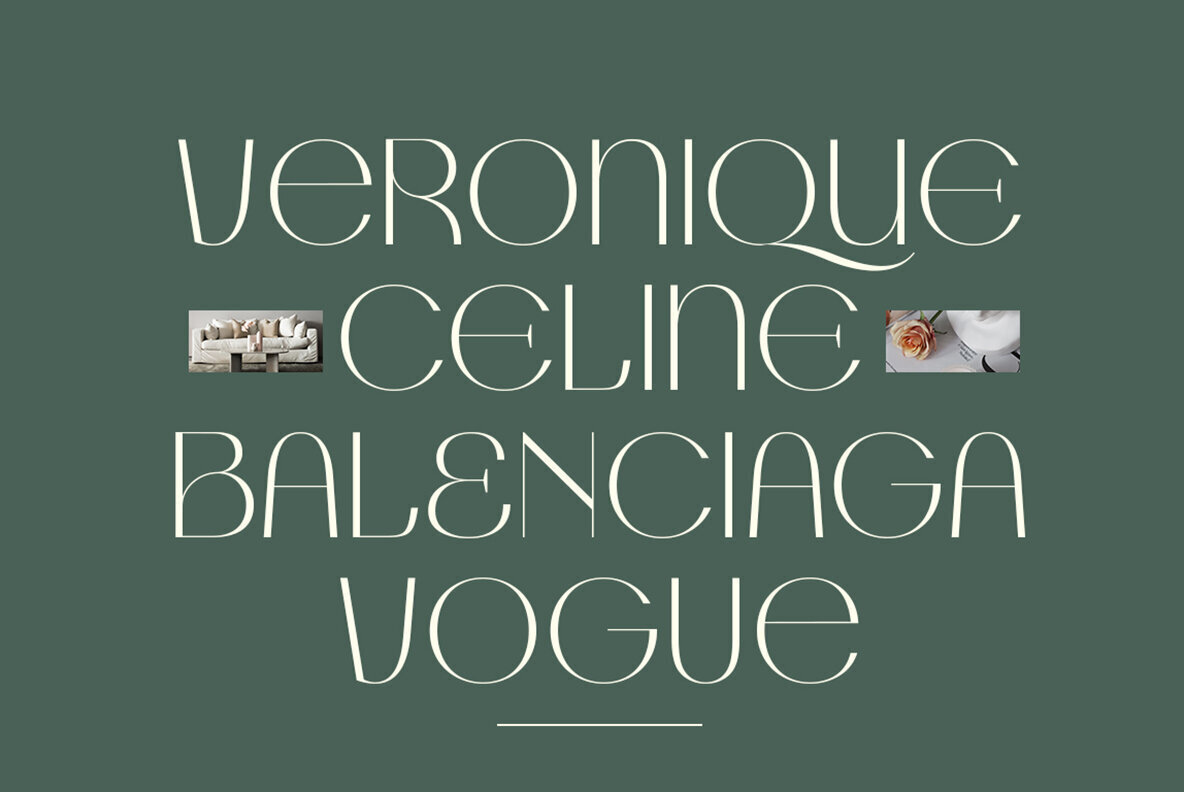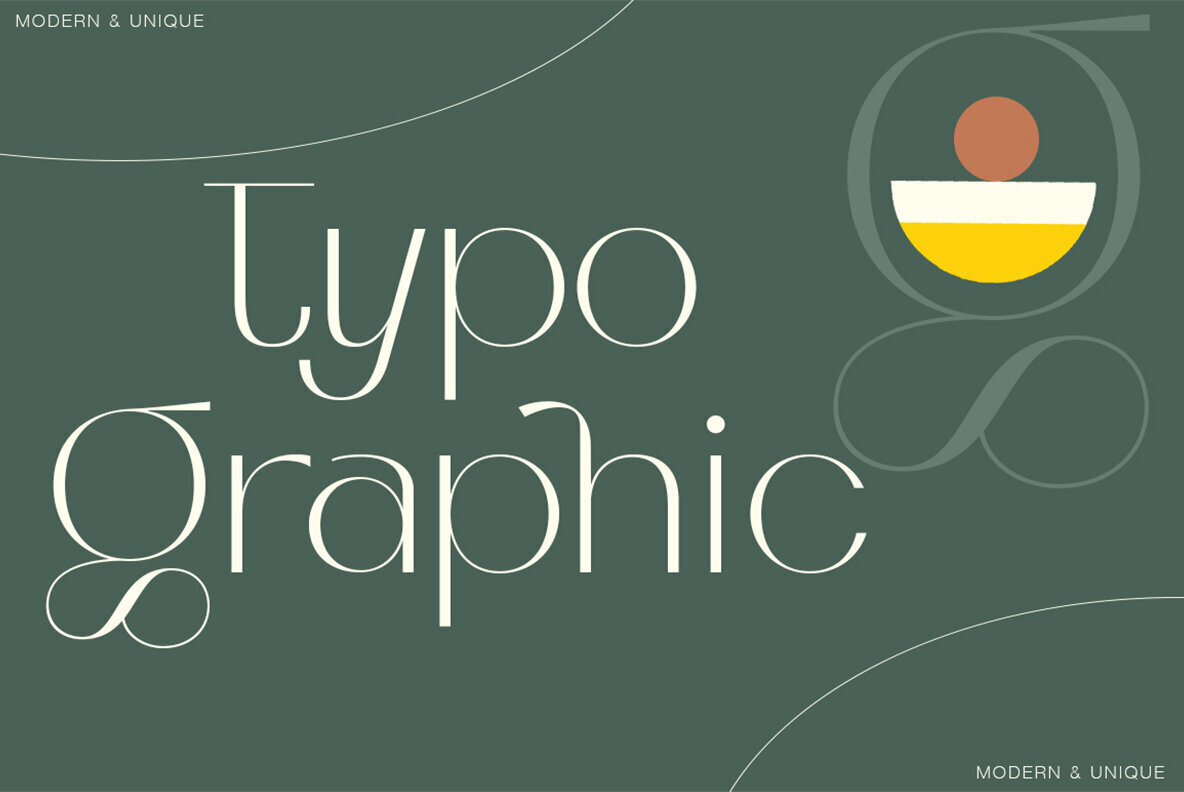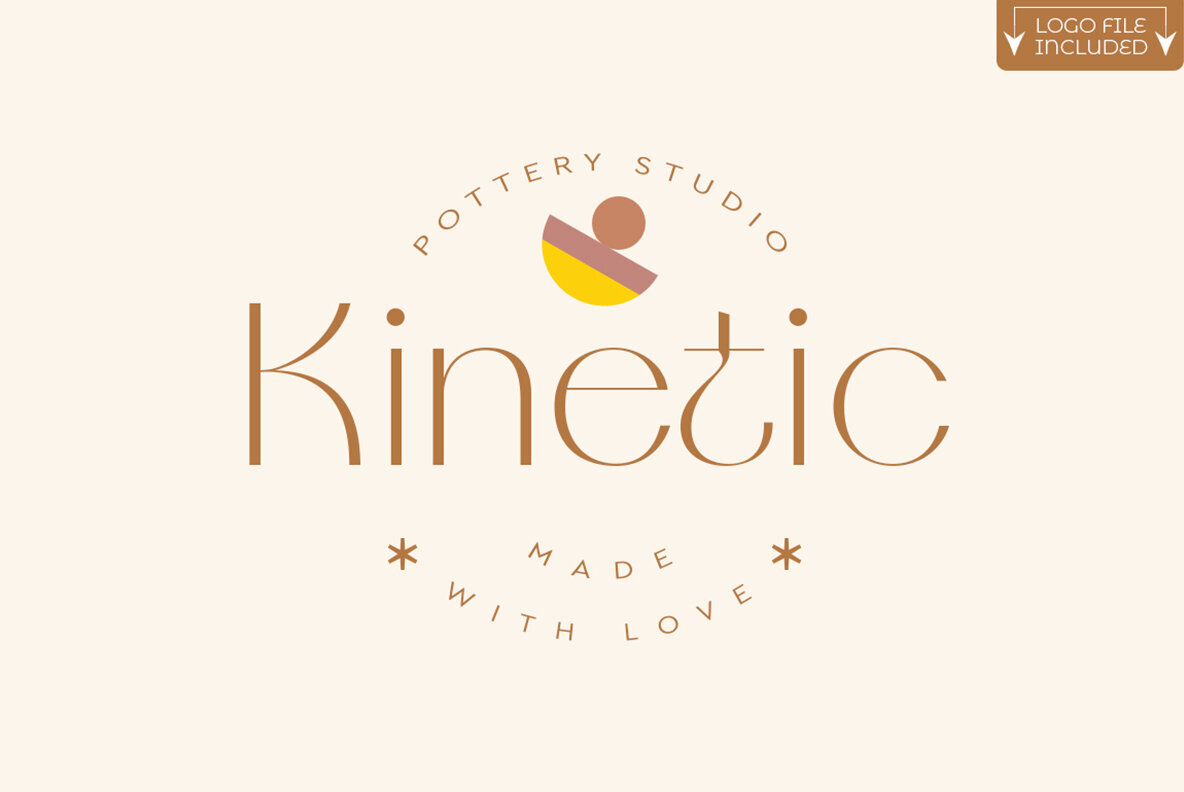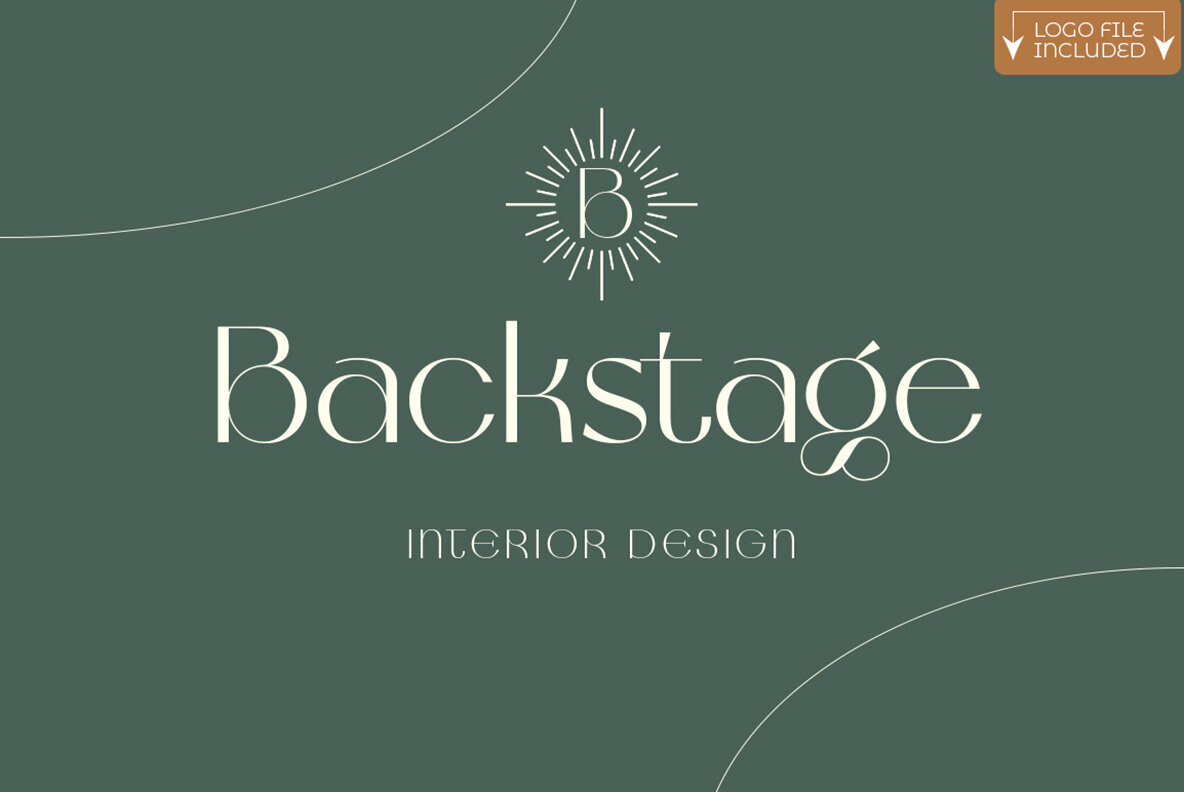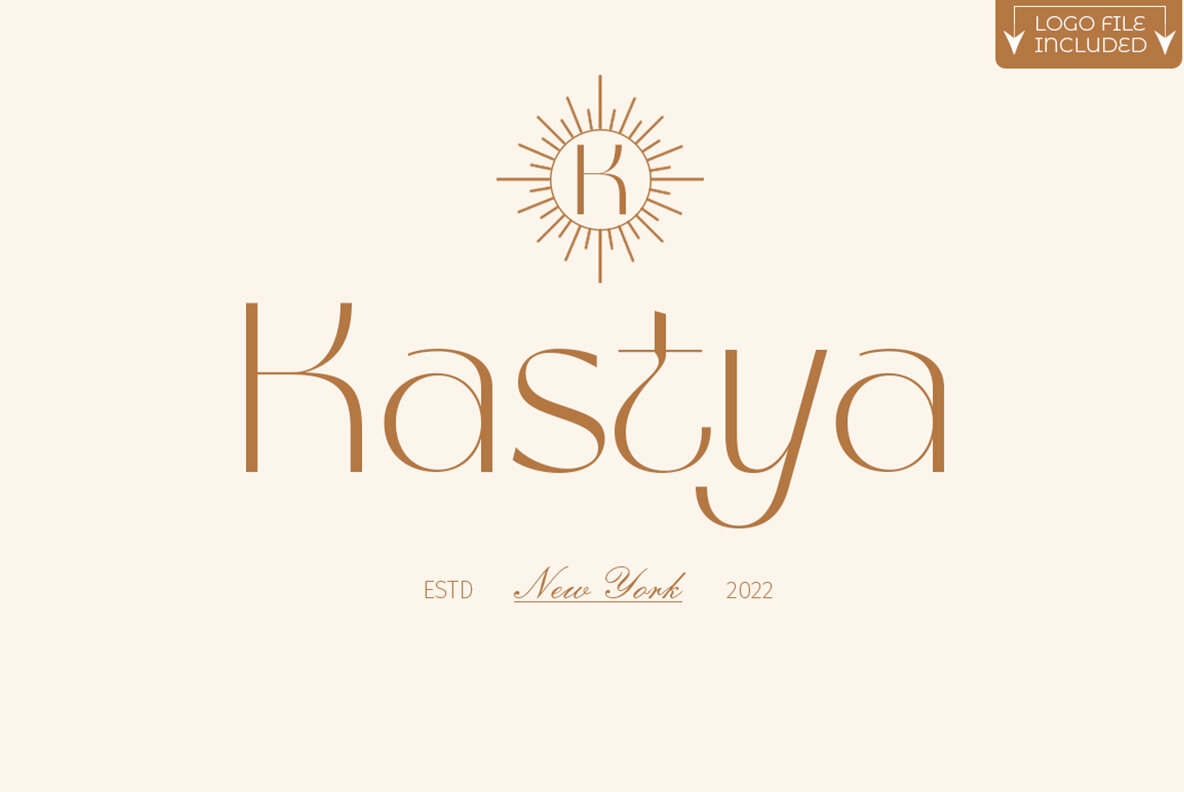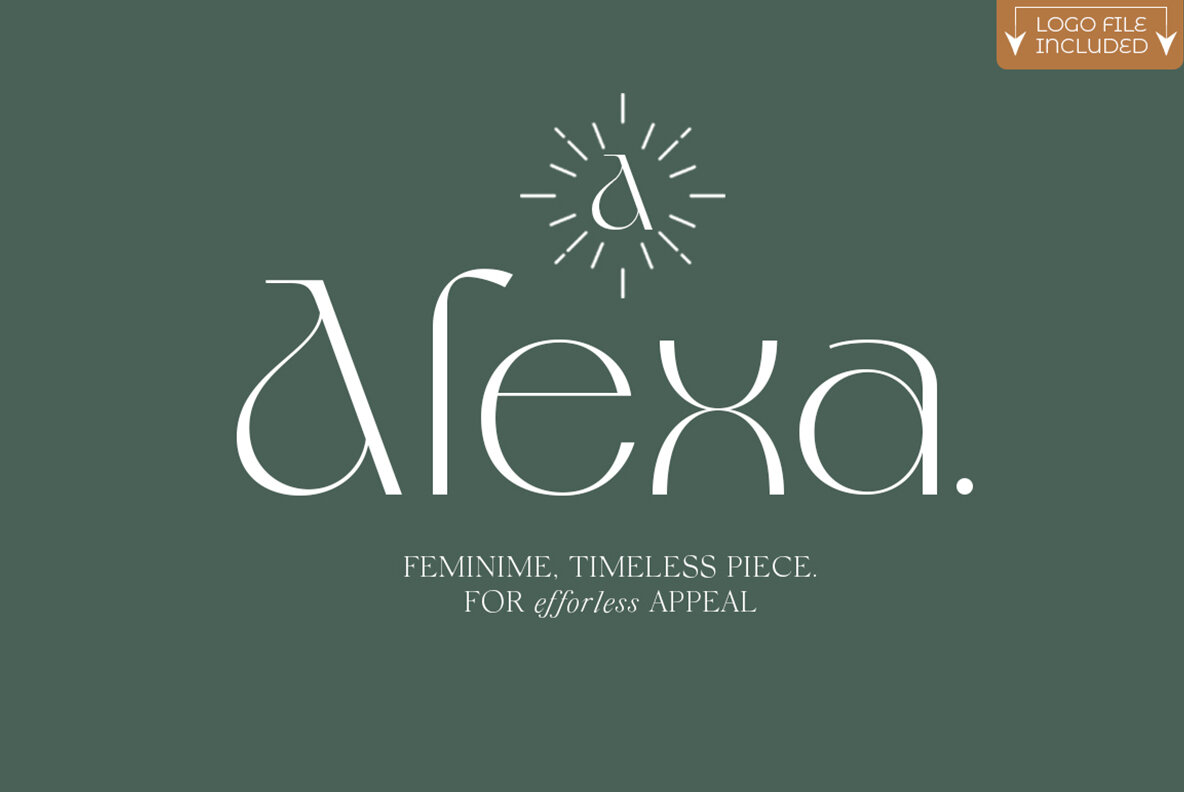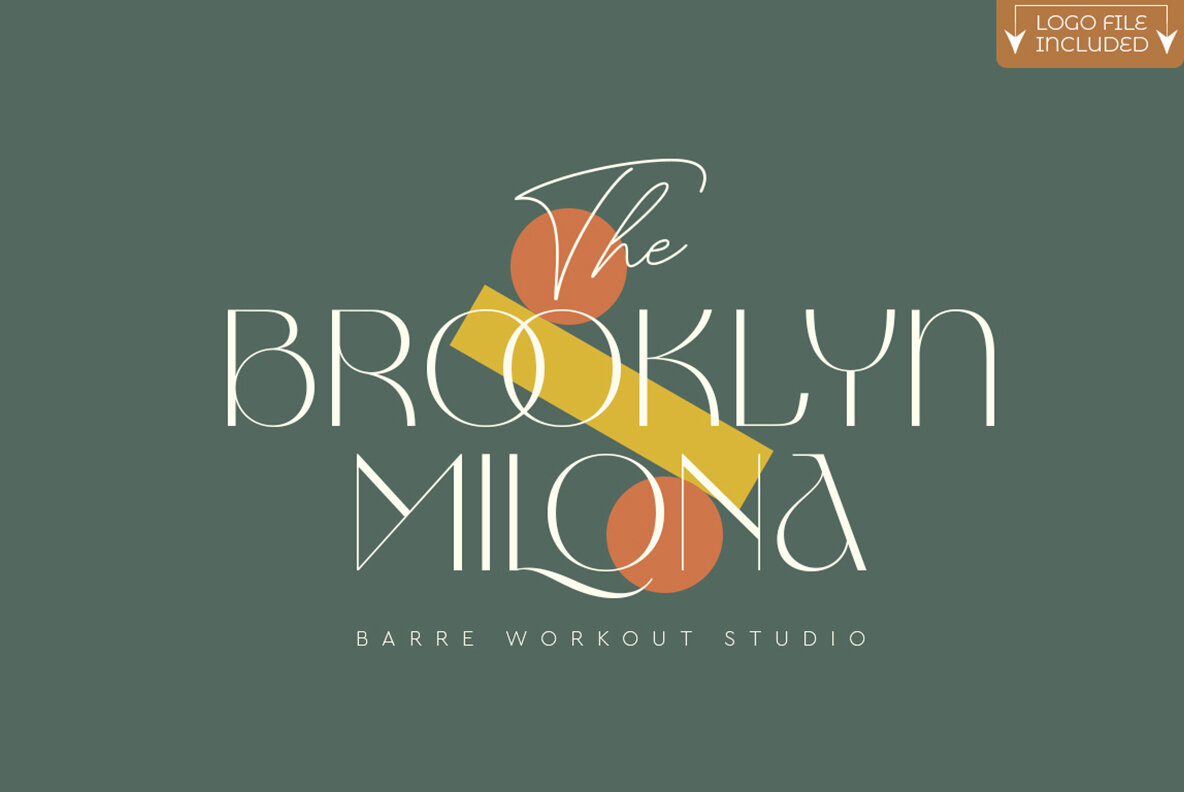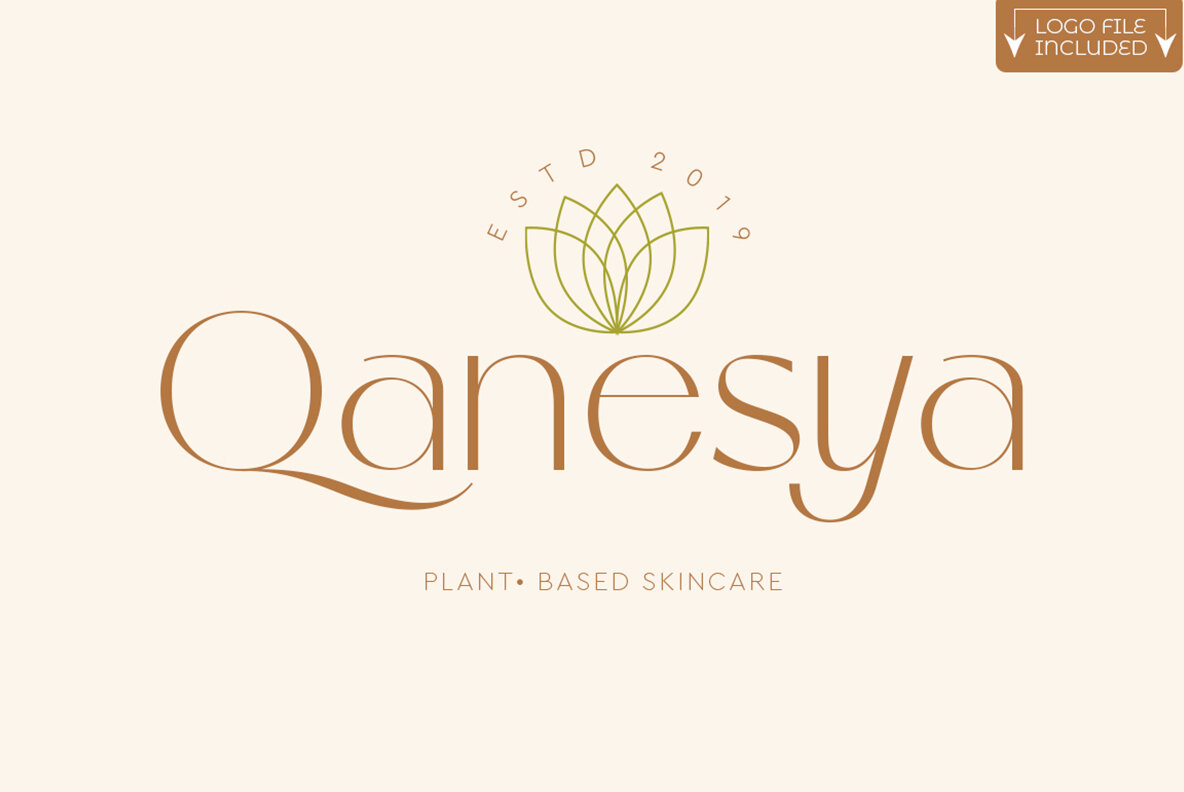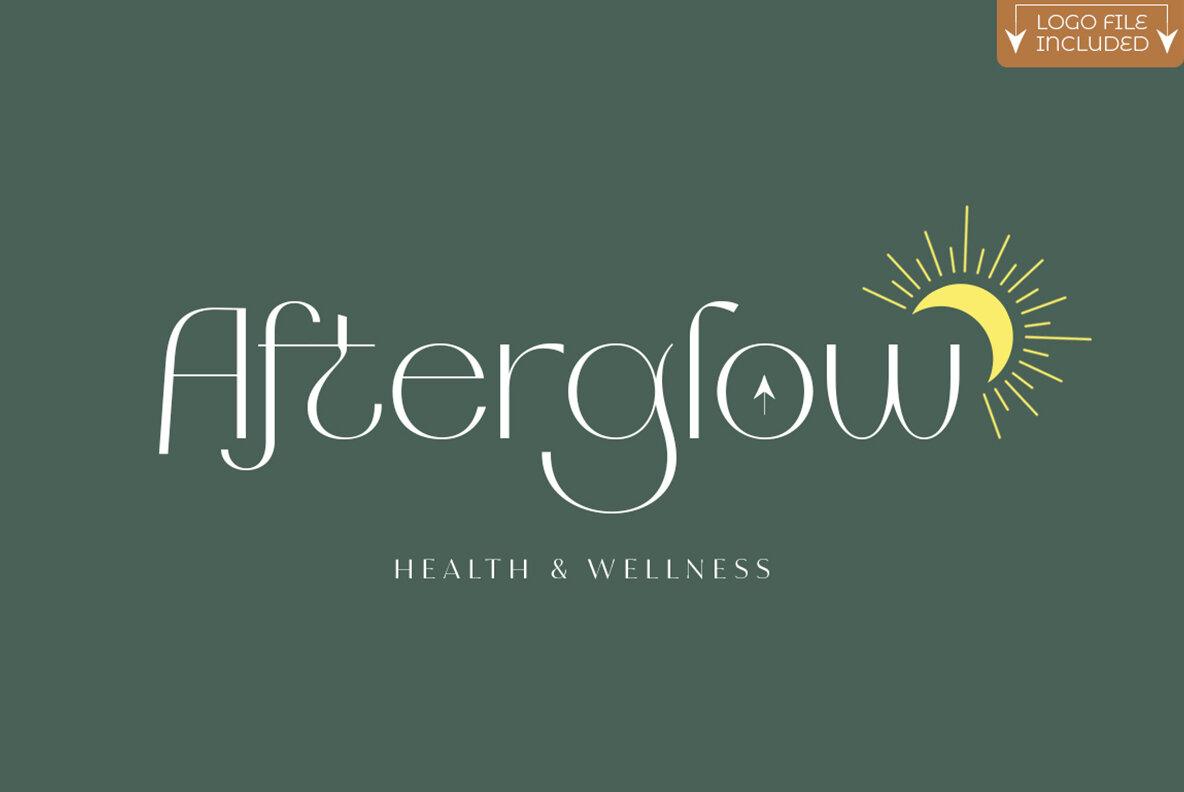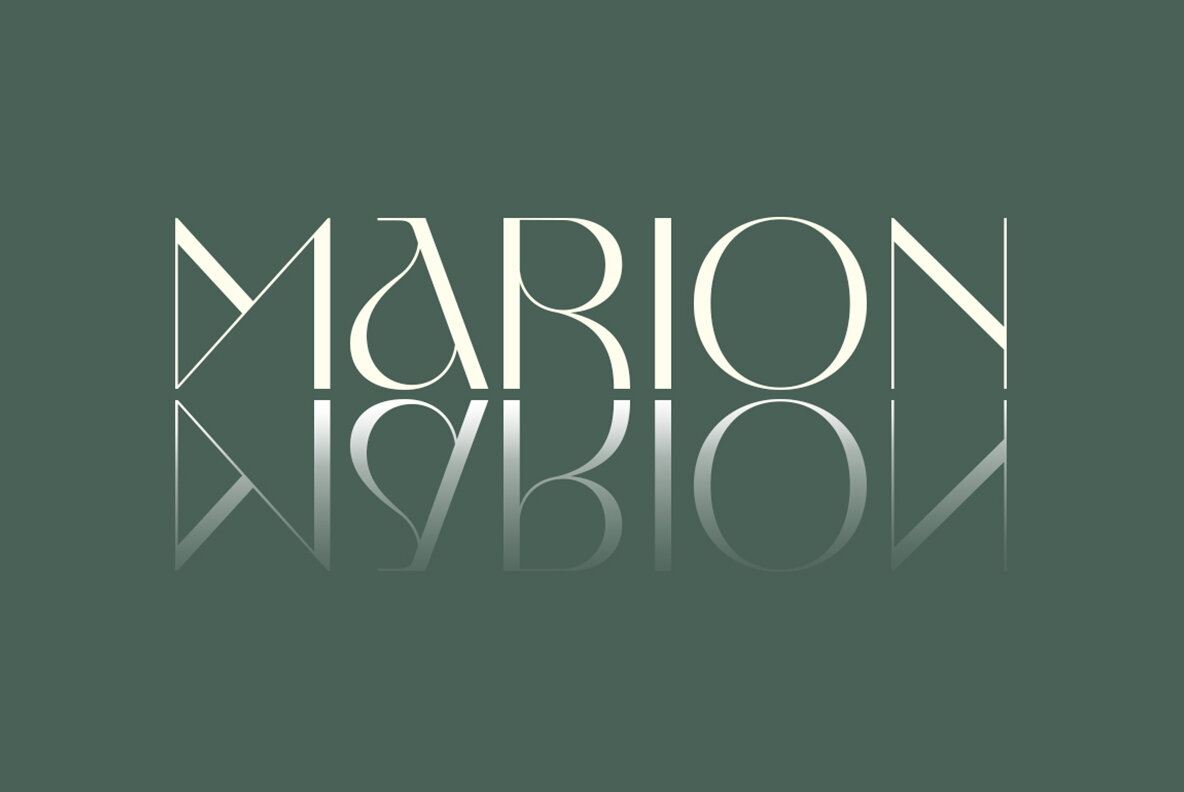
Veronika Luxurious 1
Veronika luxe is a glamorous typeface that can be used in any design project. With beautiful letters and an elegant appearance, it's perfect for creating logos or titles with the added touch of class needed when you want your designs to stand out from other brands.